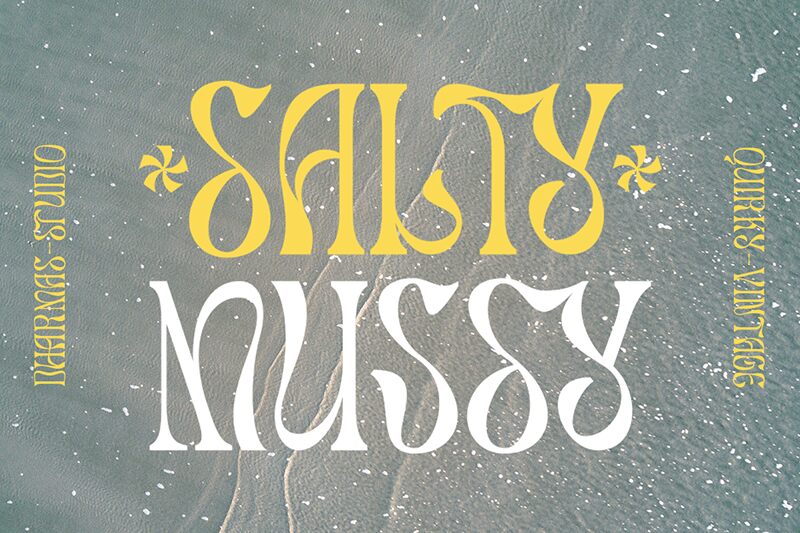
Salty Mussy, designed by Dharmas Studio, is an impressive display font that effortlessly captures the essence of retro aesthetics. With its semi-light weight and condensed width, this font adds a touch of nostalgia to any project. Perfect for creating vintage-inspired logos, packaging designs, and movie posters, Salty Mussy brings an air of authenticity to your work. Its unique style offers endless possibilities for creative branding campaigns, social media graphics, and even album covers. Embrace the charm of the past with Salty Mussy - a font that will transport your audience back in time while leaving a lasting impression.